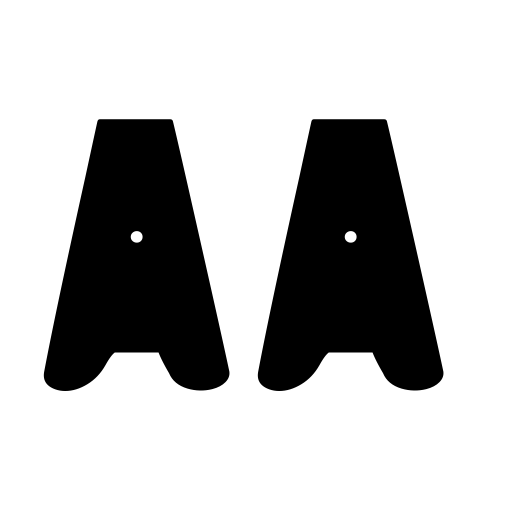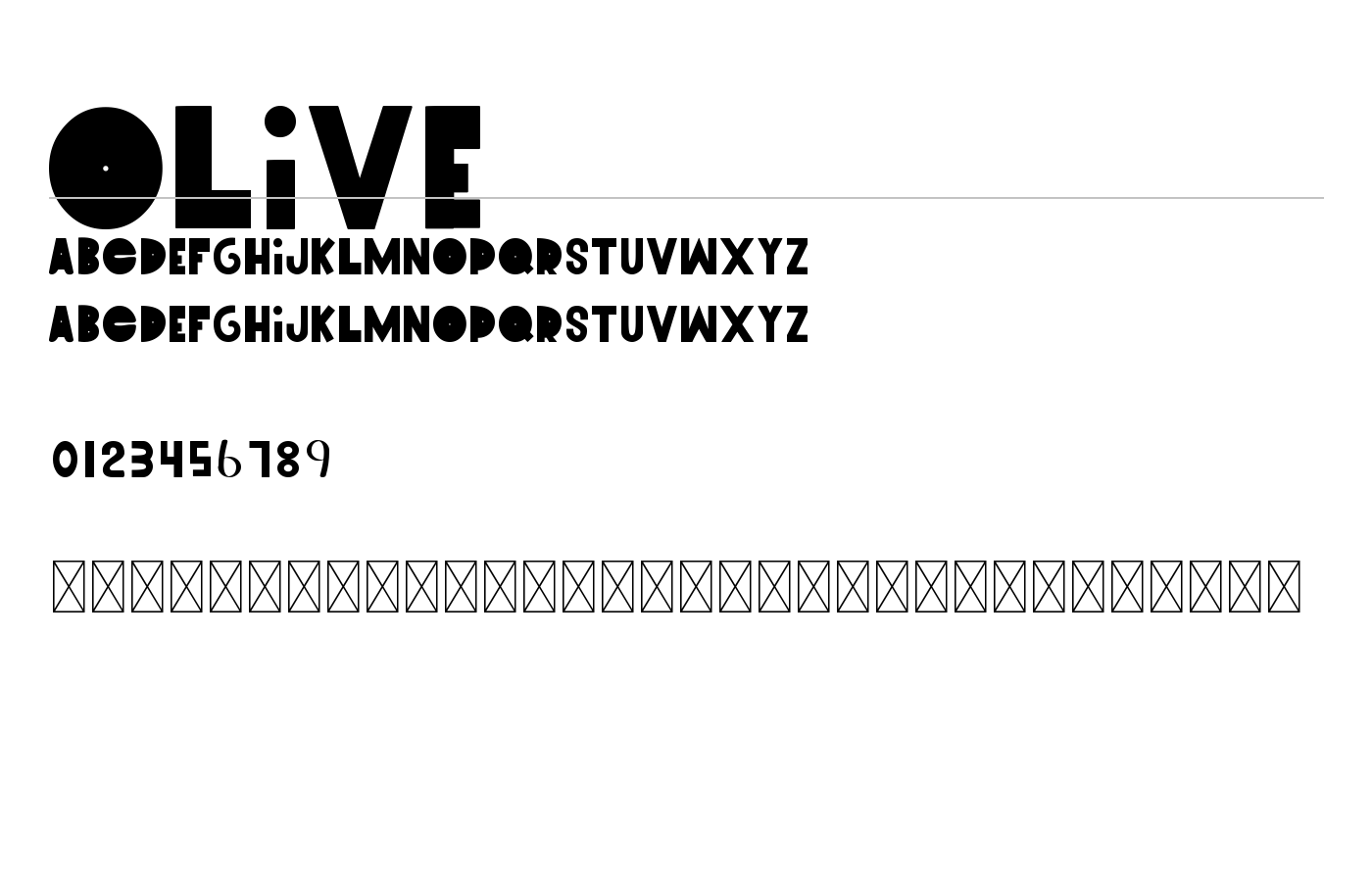
Olive Font is a playful and bold display typeface characterized by its heavy weight and quirky, rounded shapes that give it a fun and friendly vibe. With its unique letterforms, including distinctive circular and block-like elements, it works great for eye-catching logos, posters, and creative branding where a touch of whimsy and strong visual impact is needed. This font’s energetic personality makes it ideal for projects aiming to convey joy and creativity.
Olive Font
About Olive Font